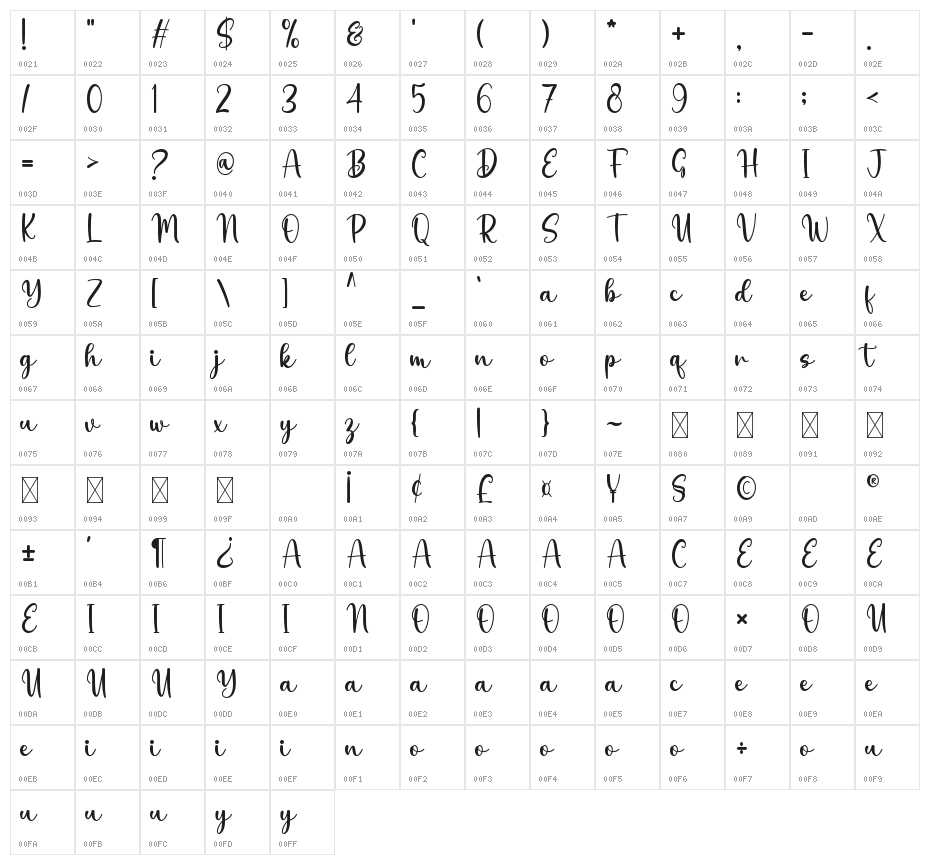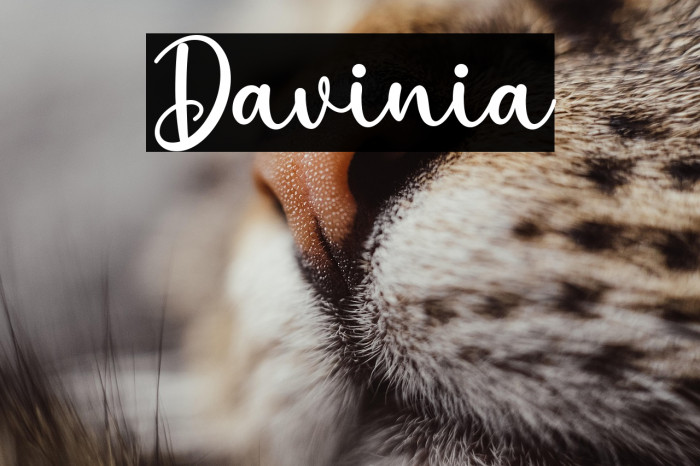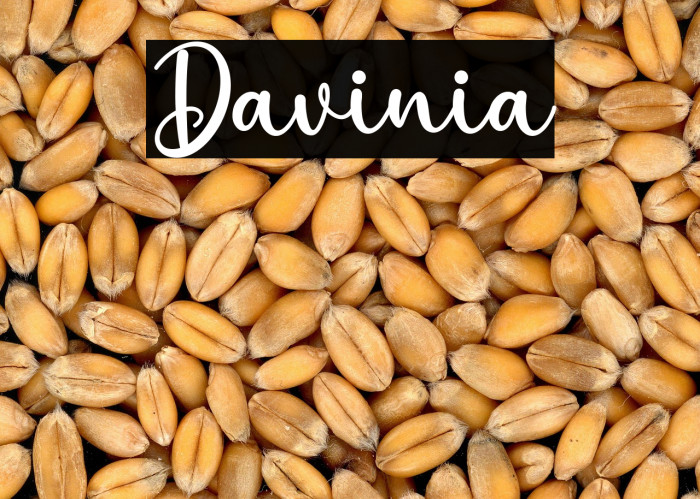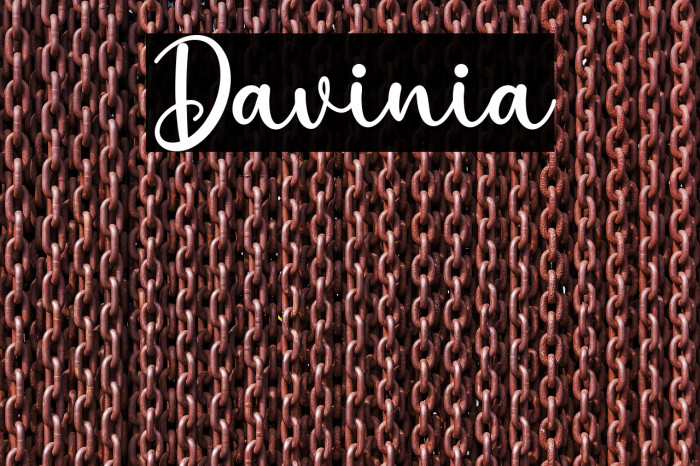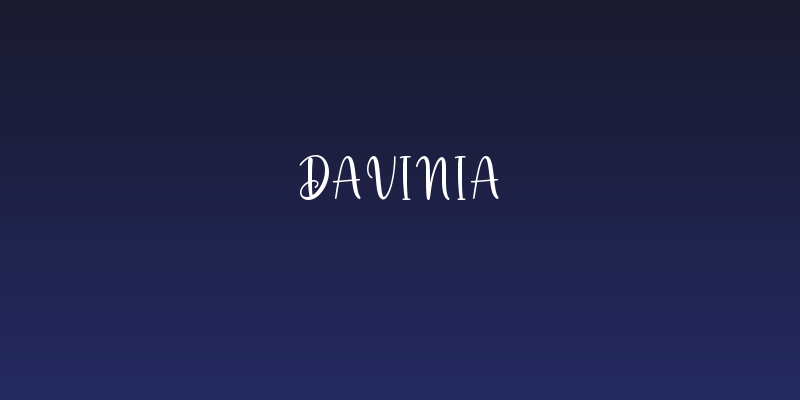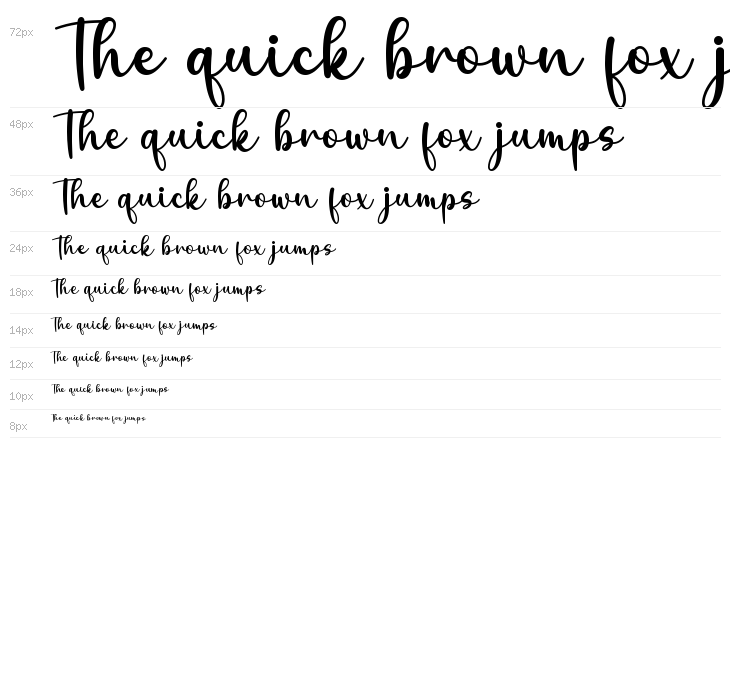
Davinia Font
Davinia Description
This font features a playful and elegant script style with a handwritten appearance. The uppercase letters are bold and slightly whimsical, with varying stroke widths that add a dynamic feel. The lowercase letters flow smoothly with a natural cursive touch, maintaining a consistent rhythm throughout. Numbers and special characters are crafted with the same playful elegance, making them versatile for various design needs. The overall look is both modern and timeless, suitable for adding a personal touch to any project.
| Use Case | Logos, Invitations, Social Media Graphics |
| Proposed Projects | Ideal for wedding invitations, greeting cards, branding projects, and social media graphics. |